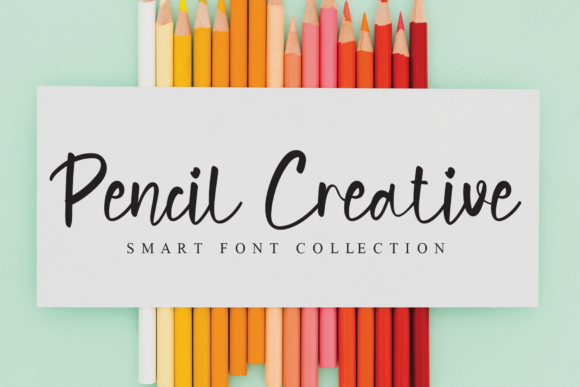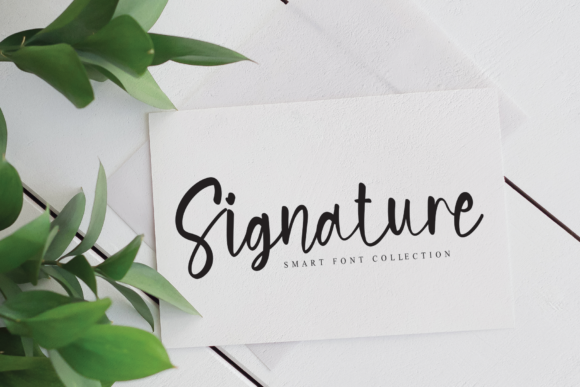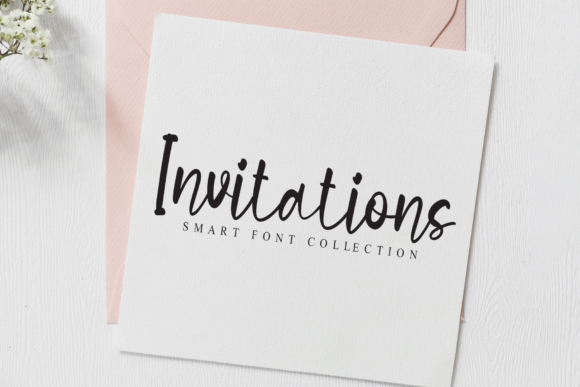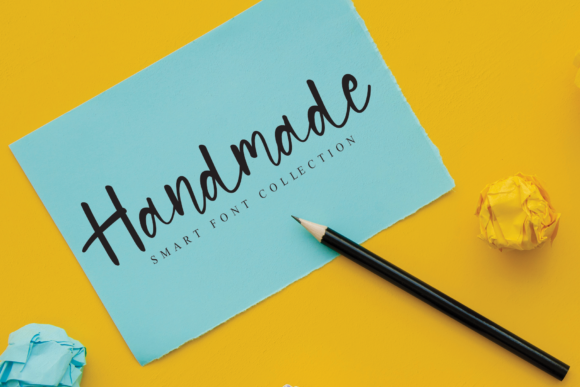
Babyflower Font: The Ultimate Guide to This Lovely Handwritten Font
Babyflower is a lovely handwritten font that has captured the hearts of designers and crafters alike. Its incredibly versatile style makes it perfect for creating spectacular designs that are sure to impress. In this article, we’ll dive into the world of Babyflower Font, exploring its features, uses, and benefits. Whether you’re a seasoned designer or a crafting enthusiast, you’ll fall in love with this charming font.
What is Babyflower Font?
Babyflower Font is a beautiful handwritten font that exudes warmth and elegance. Its unique style is characterized by delicate strokes, subtle imperfections, and a touch of playfulness. This font is perfect for adding a personal touch to your designs, making them stand out from the crowd.
Features of Babyflower Font
- Handwritten style: Babyflower Font boasts a genuine handwritten look that’s perfect for creating personal and emotive designs.
- Versatility: This font is incredibly versatile, making it suitable for a wide range of design projects, from invitations and greeting cards to branding and packaging.
- Easy to read: Despite its delicate nature, Babyflower Font is surprisingly easy to read, making it perfect for body text and headlines.
- Extensive character set: Babyflower Font comes with an extensive character set, including uppercase and lowercase letters, numbers, and punctuation marks.
Uses of Babyflower Font
Babyflower Font is perfect for a variety of design projects, including:
- Wedding and event invitations: Add a touch of romance and whimsy to your wedding or event invitations with Babyflower Font.
- Greeting cards and stationery: Create beautiful greeting cards, stationery, and gift tags with this lovely font.
- Branding and packaging: Use Babyflower Font to create unique and eye-catching branding and packaging designs that stand out from the competition.
- Digital art and illustrations: Add a touch of elegance and sophistication to your digital art and illustrations with Babyflower Font.
Benefits of Using Babyflower Font
So, why choose Babyflower Font for your design projects? Here are just a few benefits:
- Unique and distinctive: Babyflower Font is a one-of-a-kind font that will set your designs apart from the rest.
- Easy to use: This font is incredibly easy to use, even for those with limited design experience.
Tips for Using Babyflower Font
To get the most out of Babyflower Font, here are a few tips:
- Experiment with different sizes and colors: Don’t be afraid to experiment with different sizes and colors to find the perfect combination for your design.
- Pair with other fonts: Babyflower Font pairs beautifully with other fonts, so don’t be afraid to get creative and try out different combinations.
- Use it for body text: While Babyflower Font is perfect for headlines, it’s also surprisingly easy to read for body text.
In conclusion, Babyflower Font is a lovely handwritten font that’s perfect for designers and crafters alike. Its incredibly versatile style, ease of use, and high-quality features make it a must-have for any design project. Whether you’re looking to create spectacular designs for personal or commercial use, Babyflower Font is sure to impress. So why wait? Fall in love with Babyflower Font today and start creating stunning designs that will leave a lasting impression!